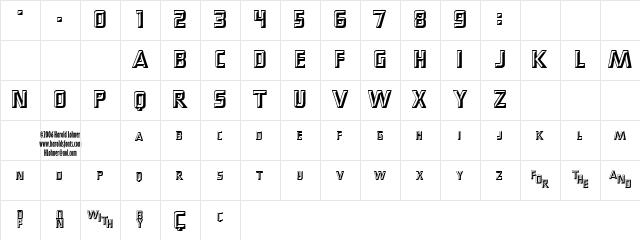
PopUps Regular Free Font
PopUps Regular
Design Context for PopUps
PopUps is a composed and adaptable typeface that performs quietly and consistently across a wide range of design contexts.